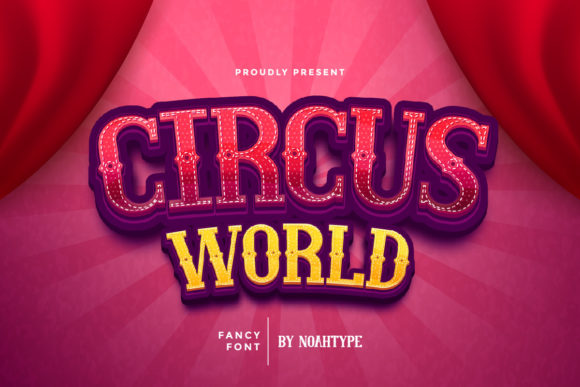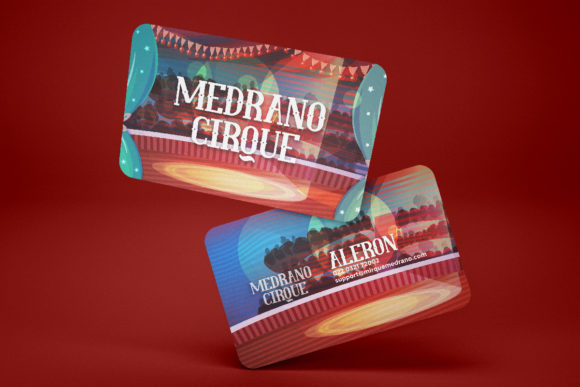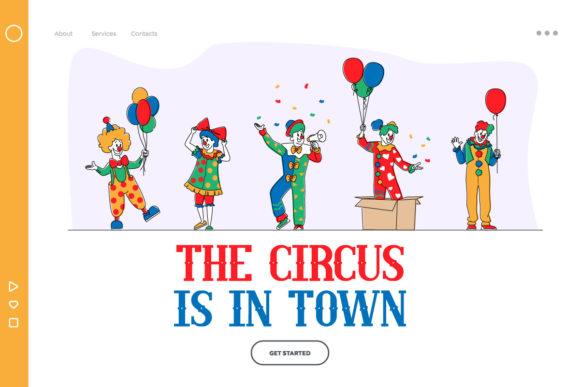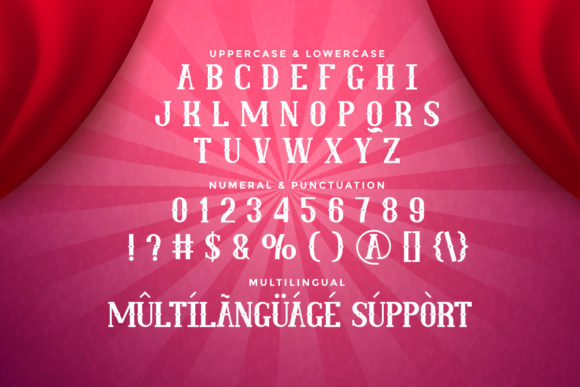
Circus World Font
About the Circus World Font
Crafted with precision, the Circus World Font is ready to bring your ideas to life. Circus World is a unique and fancy display font with a Western feel. Inspired by the magical world of the circus, it will bring a special effect to any design. It will work for the circus, comedy shows, branding, logos, and many more wonderful things!
Circus World Font Usage Examples
Circus World Font Example